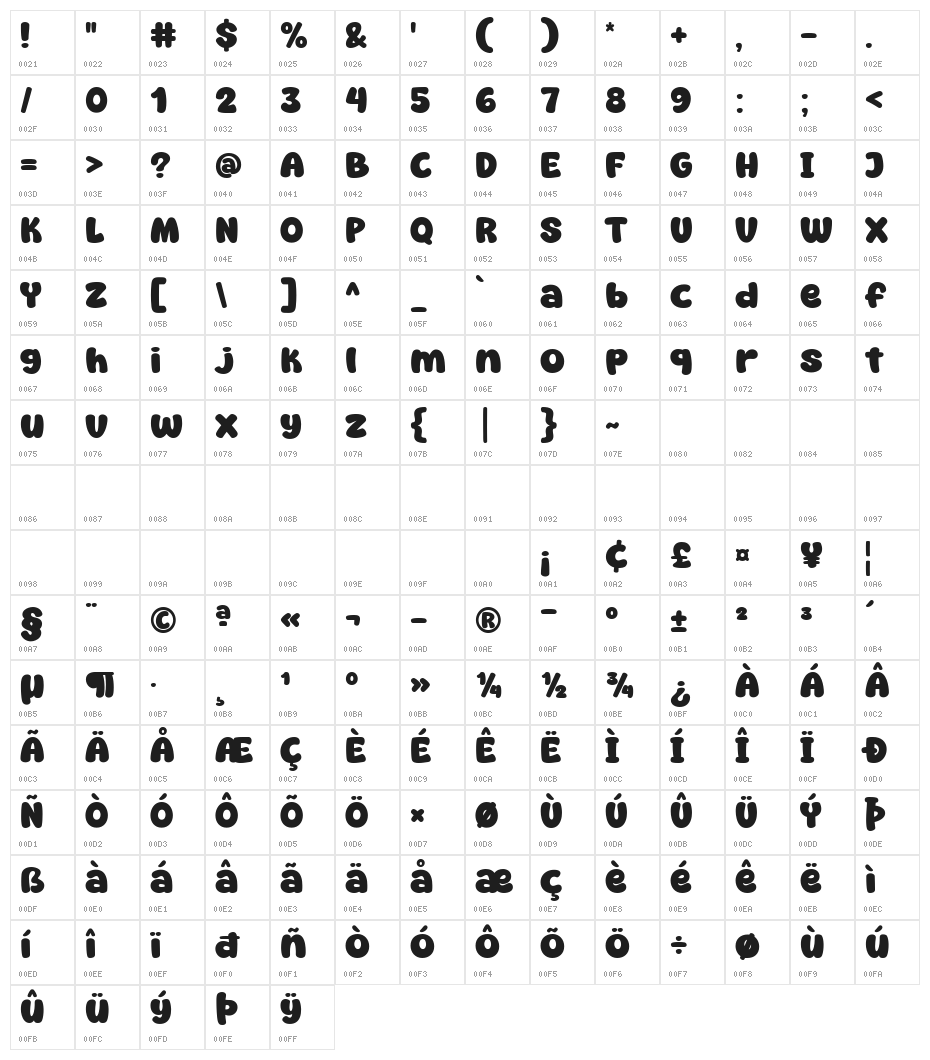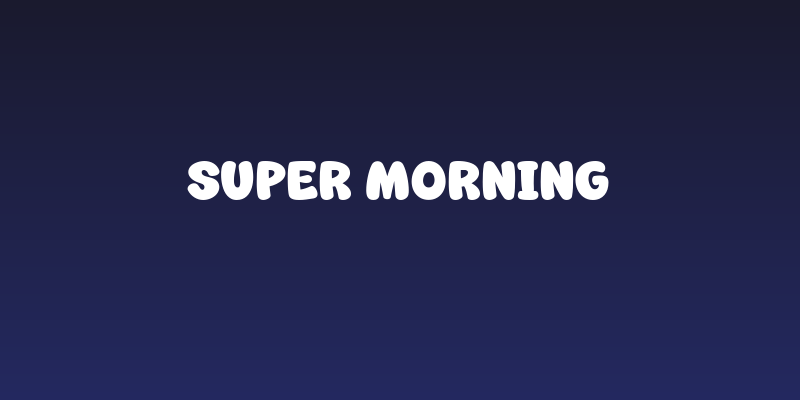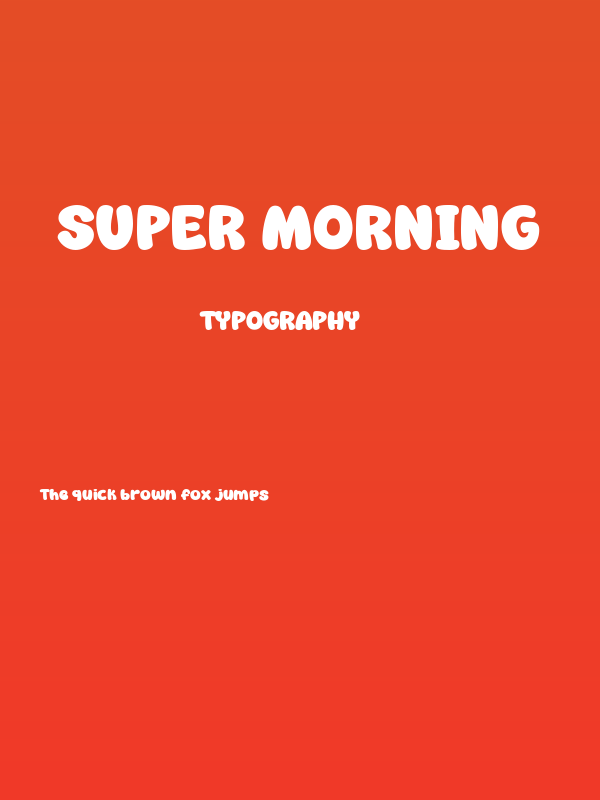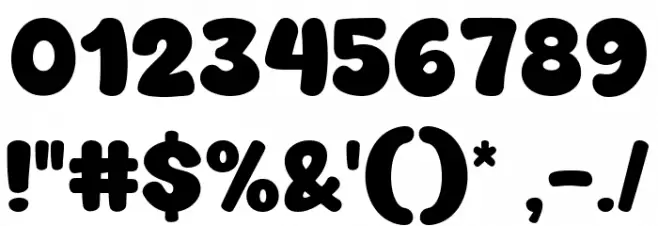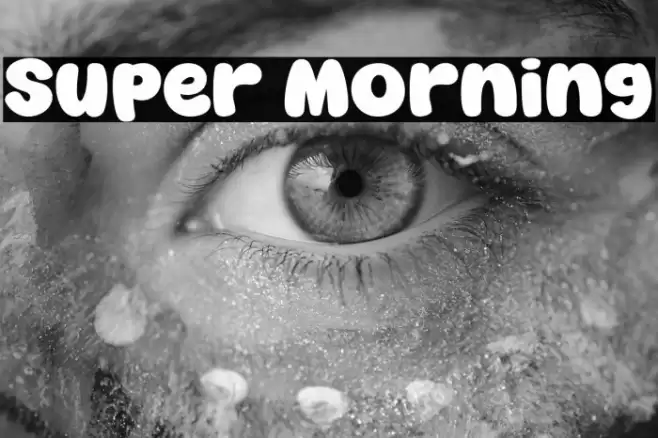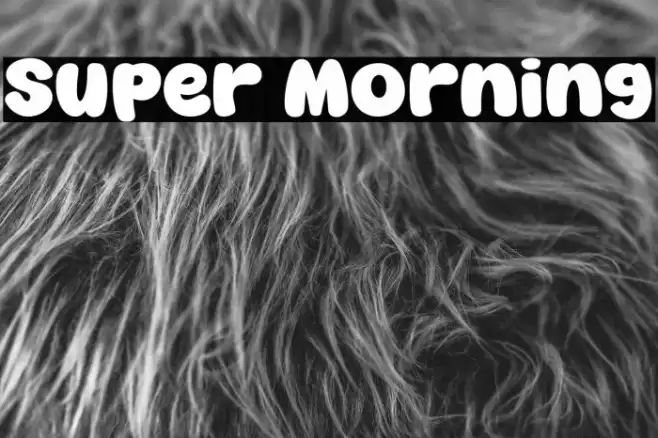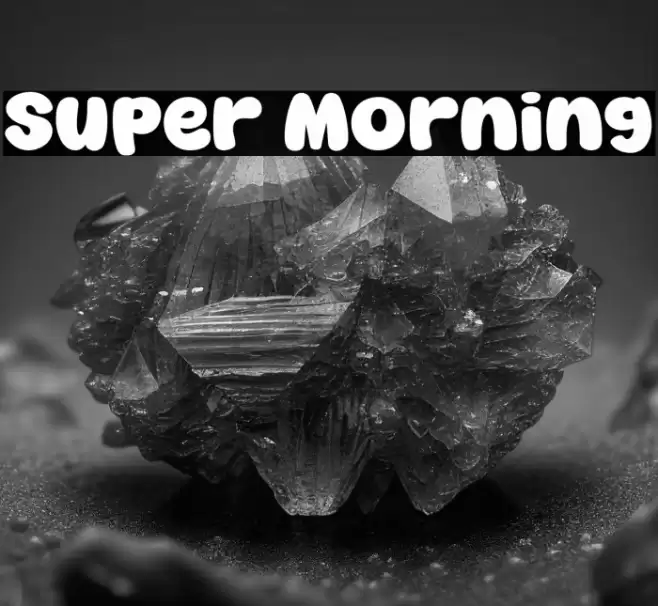
Super Morning Font
Super Morning Description
This playful and bold font features rounded, bubble-like characters that convey a sense of fun and whimsy. The letters are thick and uniform, with a consistent stroke width that gives them a strong presence. The rounded edges and lack of sharp angles contribute to a friendly and approachable aesthetic. The font includes both uppercase and lowercase letters, as well as numbers and a variety of special characters. Its boldness and unique style make it ideal for designs that aim to capture attention and convey a lively, energetic vibe.
| Overall Style | Playful, Fun |
| Proposed Projects | Ideal for children's books, playful branding, party invitations, and eye-catching posters. |